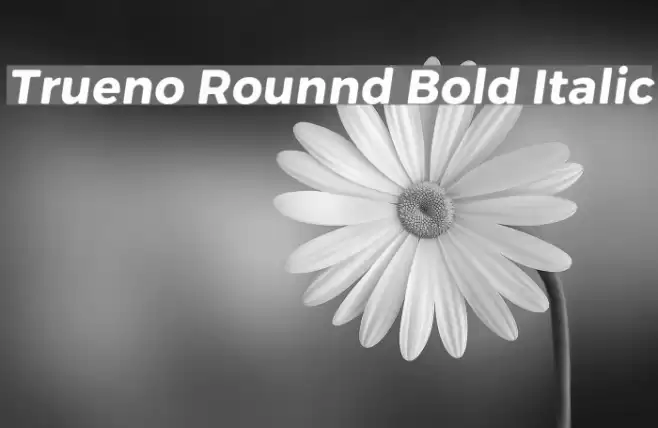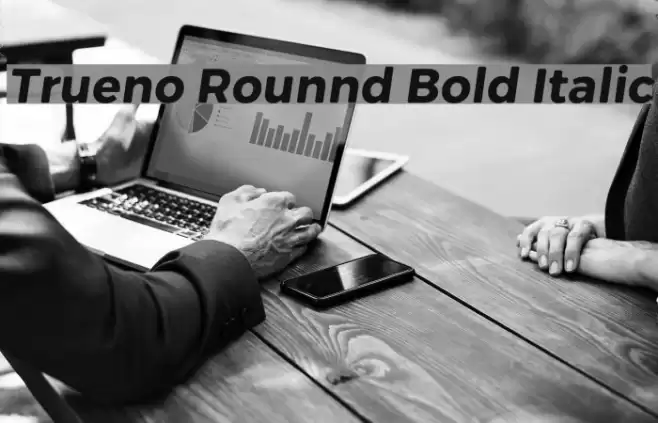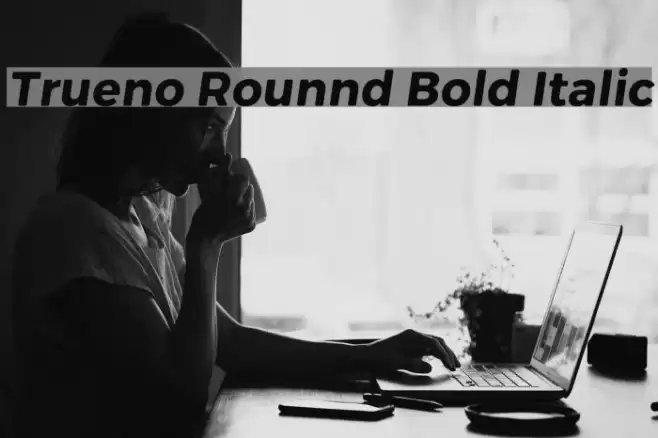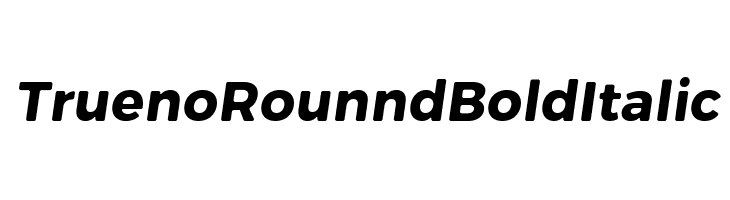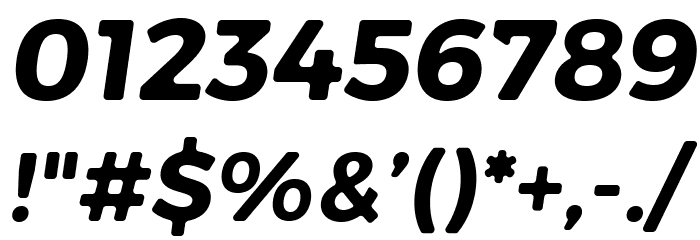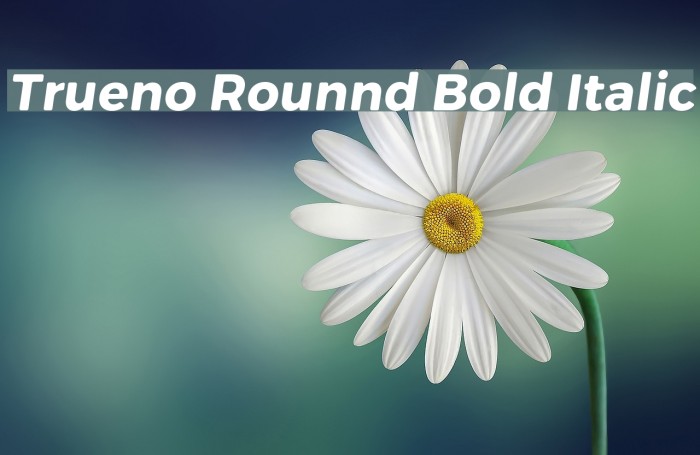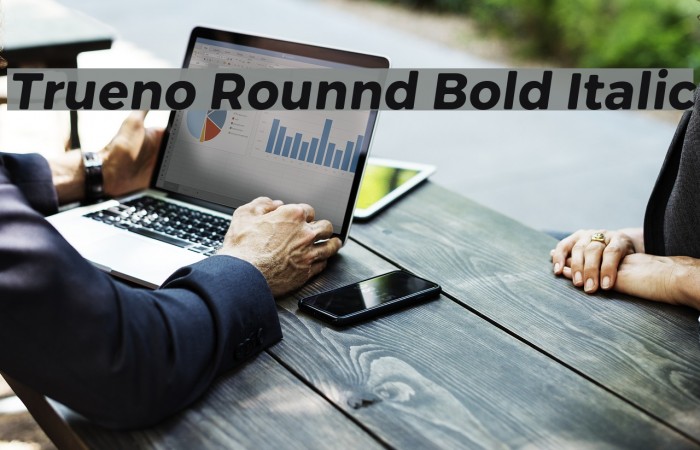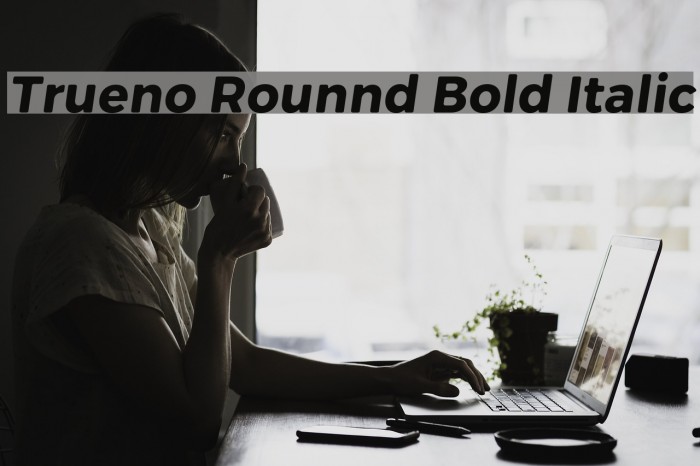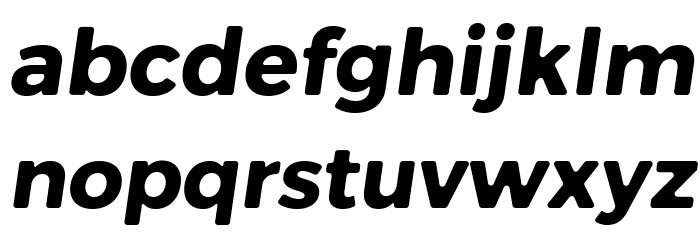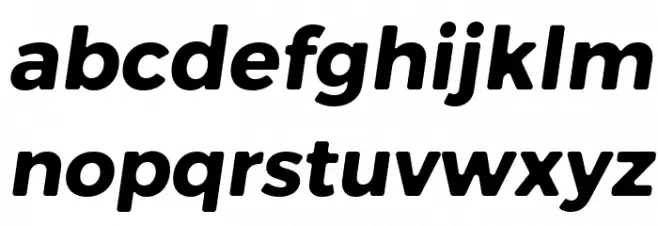
Trueno Rounnd Bold Italic
This font features a bold and rounded design with a distinct italic slant, giving it a modern and approachable appearance. The characters are well-defined with smooth curves and a consistent stroke width, contributing to its readability and friendly aesthetic. The uppercase and lowercase letters are balanced, with a slight emphasis on the rounded edges that enhance its contemporary style. The numerals are clear and easy to distinguish, maintaining the same rounded and bold characteristics. Special characters are included, providing versatility for various applications.
A bold, rounded, and italic font with a modern and approachable style.
- Proposed Projects: Ideal for branding, advertising, and digital media projects where a friendly and modern look is desired. Suitable for headlines, posters, and social media graphics.
- Use Case: Headlines, Logos, Digital Media